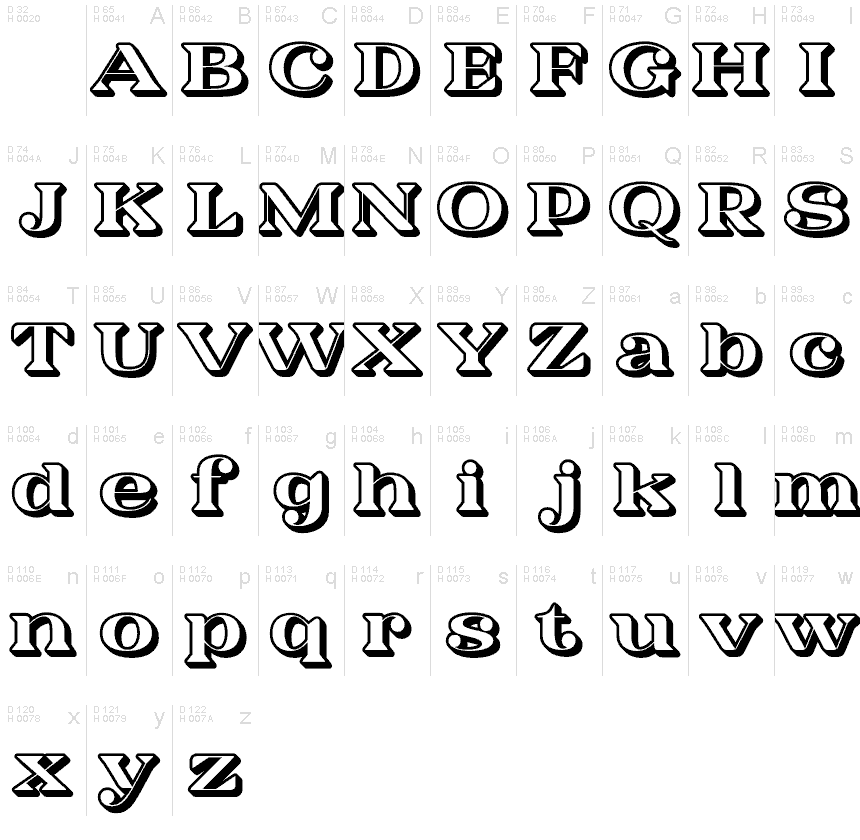
Lamna Rounded ExtrudeRight font by Craft Supply Co. brings a modern aesthetic to the classic features of expanded bold serif typefaces. The 3D letters have geometric influences that can be noted in their subtle curves and almost rectangular shapes. Each character has a unique design with distinct outlines that allow it to make a strong presence individually and in groups.
Being free, Lamna as a whole is suitable for business card designs, invitation cards, labels, logos, packaging designs, branding projects, books covers or pages typography and much more. Consider this font in your headings for magazines, posters or advertisements as well as professional decoration on certificates or resumes.